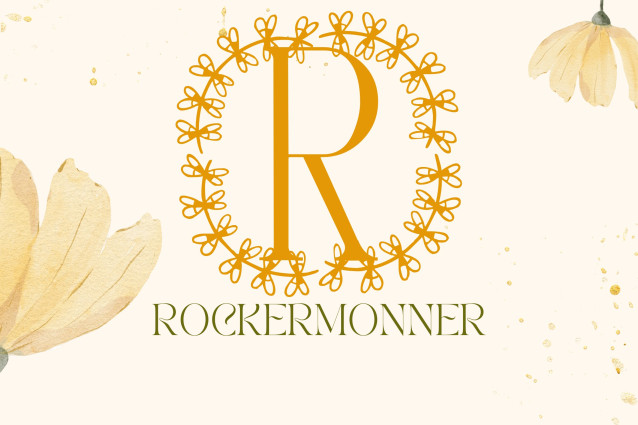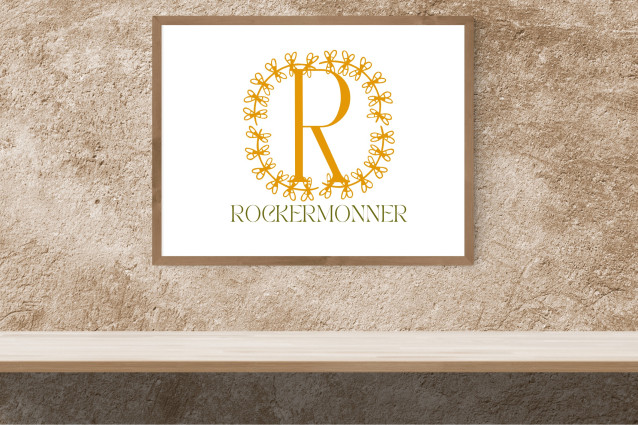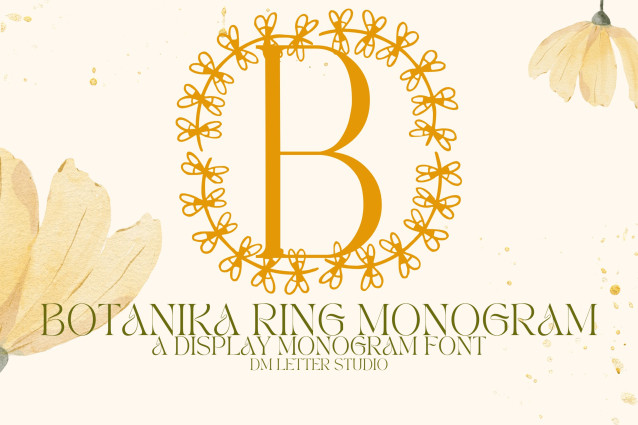
Botanika Ring Monogram Font
Botanika Ring Monogram Font is a refined floral monogram font featuring uppercase initials enclosed in graceful botanical rings. Each letter is crafted with elegance and harmony, making it ideal for wedding branding, gift packaging, boutique logos, and creative monogram projects. With its nature-inspired details and timeless balance, Botanika Ring Monogram brings a soft, sophisticated touch to your designs.